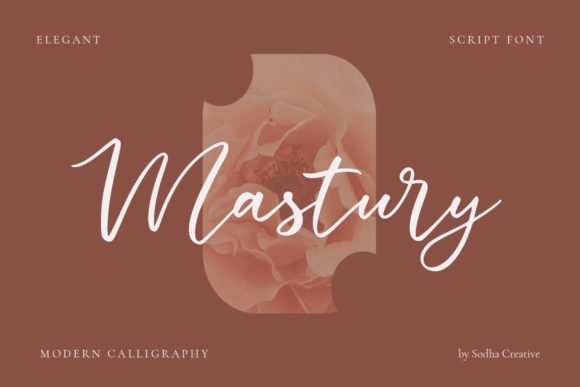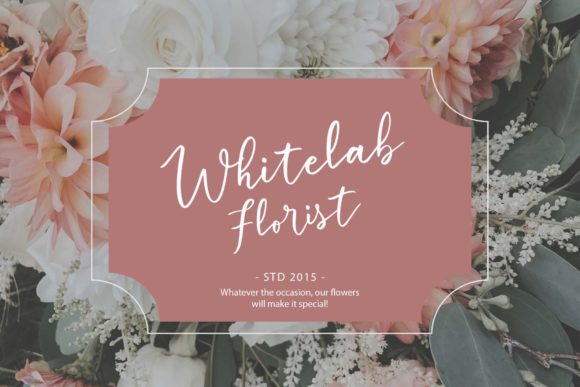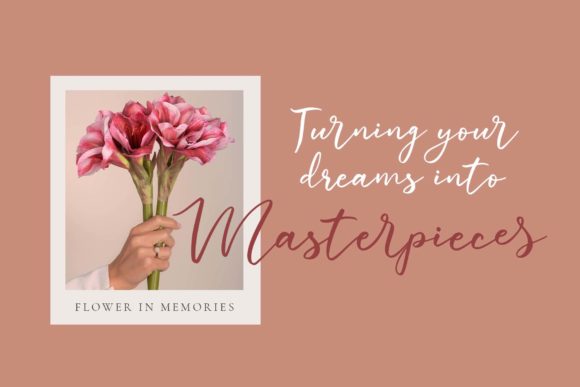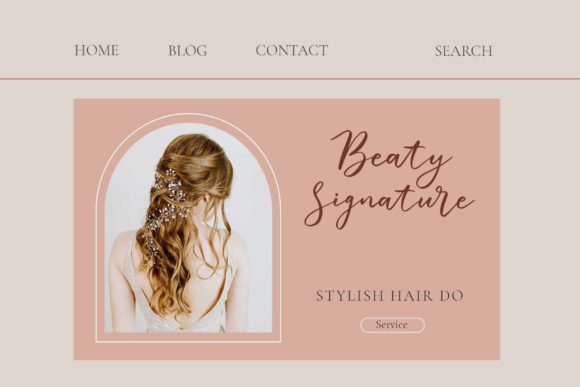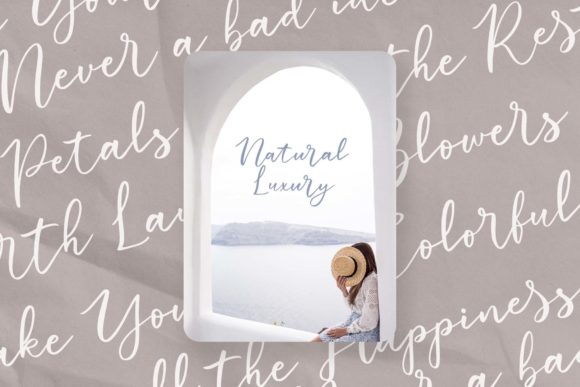
About Mastury Font
Introducing Mastury, a stylish script font that embodies elegance and grace. With its beautiful flow and intricate letterforms, this font is perfect for creating stunning wedding invitations, captivating stationary art, and eye-catching social media posts.
Mastury’s elegant and flowing style adds a touch of sophistication to any design. Each letter is carefully crafted to maintain a harmonious balance, ensuring a visually pleasing and cohesive look. The graceful curves and flourishes of this font create a sense of movement and add a touch of romance to your designs.
With Mastury, you have the freedom to unleash your creativity and create truly breathtaking designs. Whether you’re designing wedding invitations, love letters, or any other project that requires a touch of elegance, this font will elevate your creations to new heights.
Not only is Mastury visually stunning, but it is also versatile in its applications. Beyond wedding invitations and stationary art, this font can be used for branding, logo design, packaging, and more. Its timeless style and versatile nature make it a valuable asset in your font collection.
Mastury is designed to be user-friendly and accessible. Its smooth curves and clean lines ensure legibility, even at smaller sizes. Additionally, it supports multiple language characters, allowing you to reach a wider audience and cater to various design needs.
Whether you’re a professional designer or an enthusiastic DIY creator, Mastury is a font that will inspire and enhance your projects. Its ravishing style and elegant flow will captivate your audience and leave a lasting impression.
So, fall in love with Mastury’s ravishing style and let it be the perfect companion for creating beautiful wedding invitations, stationary art, social media posts, and more. Let this font add a touch of elegance and sophistication to your designs, making them truly unforgettable.